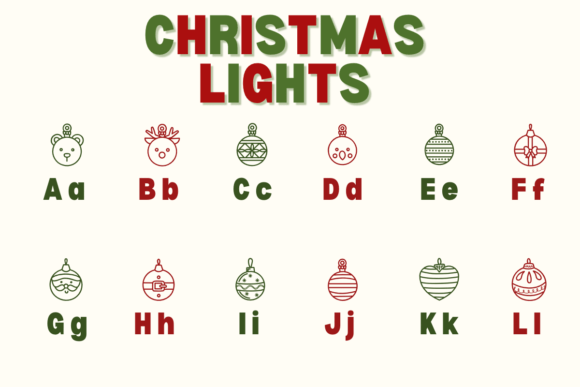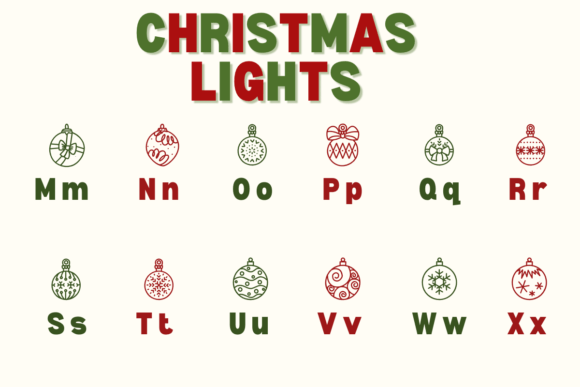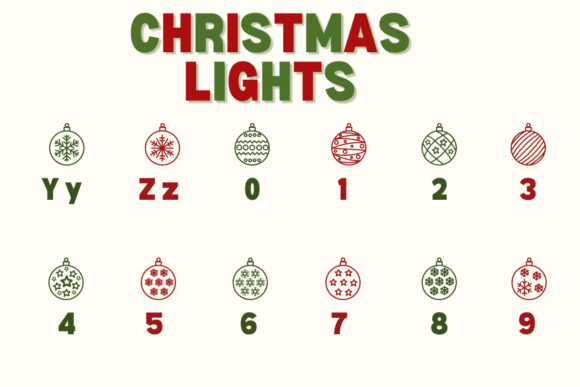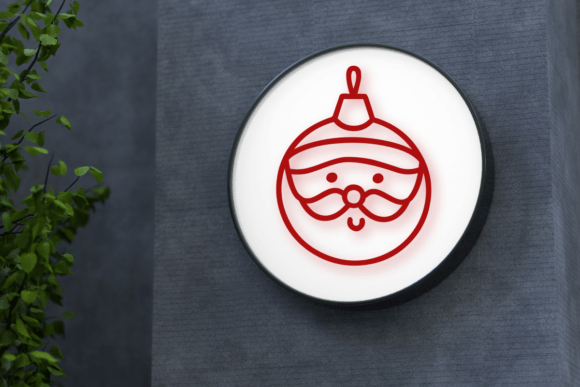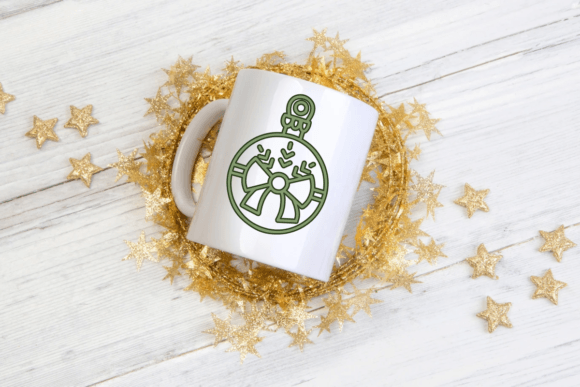
Deck the Halls with Christmas Lights Font: A Festive Dingbats Font for Your Creative Projects
Are you looking for a font that captures the magic and wonder of Christmas? Look no further than the Christmas Lights Font, a delightful dingbats font that brings a touch of festive cheer to your creative projects. With its charming sketch style, this font is perfect for designers, crafters, and DIY enthusiasts who want to add a dash of holiday sparkle to their work.
What is Christmas Lights Font?
Christmas Lights Font is a unique dingbats font that features a beautiful, hand-drawn sketch style inspired by traditional Christmas lights. The font includes a range of festive symbols, including lights, ornaments, snowflakes, and other holiday-themed icons. With its intricate details and whimsical design, this font is sure to add a touch of personality to your creative projects.
How Can I Use Christmas Lights Font?
The possibilities are endless with Christmas Lights Font! Here are just a few ideas to get you started:
- Wedding Invitations: Add a touch of festive flair to your wedding invitations, save-the-dates, and thank-you cards with Christmas Lights Font.
- DIY Crafts: Use the font to create custom labels, gift tags, and decorations for your holiday crafts.
- Decorations: Design custom holiday decorations, such as banners, garlands, and signs, with Christmas Lights Font.
- Logos: Add a touch of holiday cheer to your business logo or branding with this festive font.
- Social Media Graphics: Create eye-catching social media graphics, such as holiday-themed Facebook posts and Instagram stories, with Christmas Lights Font.
Benefits of Using Christmas Lights Font
So why choose Christmas Lights Font for your creative projects? Here are just a few benefits:
- Unique and Eye-Catching: The font’s sketch style and festive theme make it a standout choice for designers and crafters looking for something new and exciting.
- Versatile: Christmas Lights Font can be used for a wide range of creative projects, from digital designs to handmade crafts.
- Customizable: With its range of festive symbols and icons, Christmas Lights Font can be customized to fit your unique design style.
Tips for Using Christmas Lights Font
Here are a few tips for getting the most out of Christmas Lights Font:
- Experiment with Different Sizes: Try using the font in different sizes to create visual interest and add emphasis to your designs.
- Combine with Other Fonts: Pair Christmas Lights Font with other fonts to create a unique and eye-catching design.
- Use in Digital and Print Designs: The font can be used for both digital and print designs, making it a versatile choice for designers and crafters.
Christmas Lights Font is a delightful dingbats font that brings a touch of festive cheer to your creative projects. With its charming sketch style and range of festive symbols, this font is perfect for designers, crafters, and DIY enthusiasts who want to add a dash of holiday sparkle to their work. Whether you’re creating wedding invitations, DIY crafts, or holiday decorations, Christmas Lights Font is sure to be a hit. So why wait? Download Christmas Lights Font today and start decking the halls with festive flair!